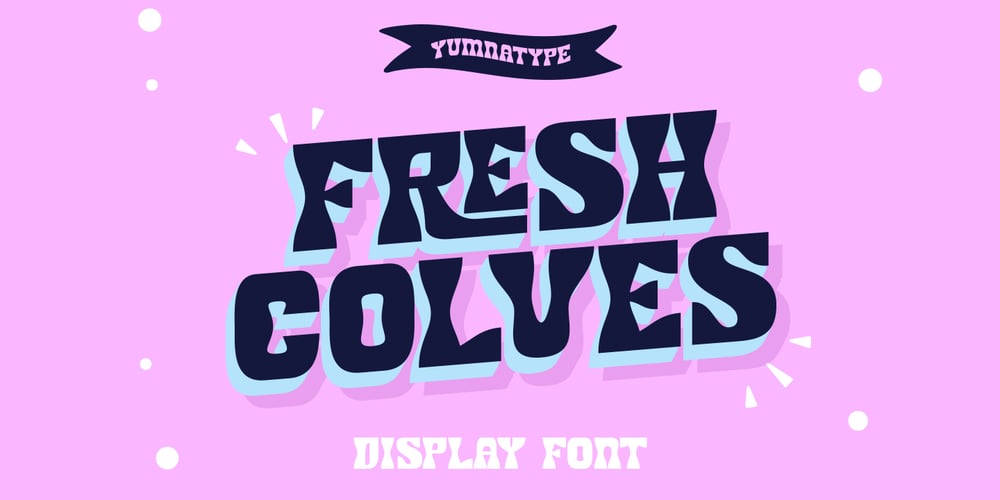
Fresh Colves Font Family was designed by Donis Miftahudin and published by Yumna Type. Fresh Colves contains 1 styles and family package options. Fresh Cloves is a captivating display font designed to infuse your projects with boldness. Crafted in all caps, this font commands attention with its strong and assertive presence. The robust weight of the letters gives them a solid and substantial appearance, perfect for making a statement.The contrast between the thick and thin strokes within the characters adds depth and visual interest, enhancing the readability of the font. Adding to its distinctive charm, Fresh Cloves characteristics is the outline not a straight line. This subtle irregularity in the outline gives the font a more bold feel, setting it apart from more traditional and rigid typefaces. In addition, enjoy the features here.Features: Stylistic Sets Multilingual Supports PUA Encoded Numerals and Punctuations Fresh Cloves fits in headlines, logos, posters, flyers, branding materials, print media, editorial layouts, and many more designs. Find out more ways to use this font by taking a look at the font preview.Thanks for purchasing our fonts. Hopefully, you have a great time using our font. Feel free to contact us anytime for further information or when you have trouble with the font. Thanks a lot and happy designing.